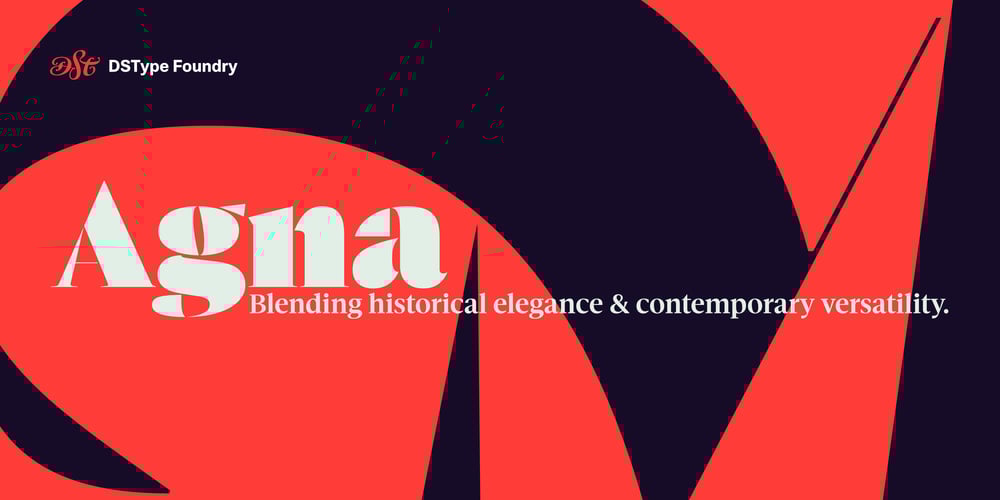
Agna Font Family was designed by Pedro Leal and published by DSType. Agna contains 60 styles and family package options. Drawing inspiration from the refined proportions of Pierre-Simon Fournier’s Petit-Canon, Agna pays homage to the storied tradition and meticulous craftsmanship of 18th-century French typography. While capturing this historical essence, Agna embodies the spirit and philosophy of DSType fonts, designed for editorial excellence. This type system offers four distinct optical sizes—Text, Subhead, Headline, and Display—each tailored to meet the diverse needs of both print and digital media. Complementing these is a meticulously crafted Poster companion, featuring four unique styles, including eye-catching Stencil letterforms and a rich array of swashes and typographic enhancements. Agna seamlessly blends historical elegance with contemporary versatility, making it the perfect choice for discerning typographers and designers who seek the ideal fusion of classic sophistication and modern functionality.